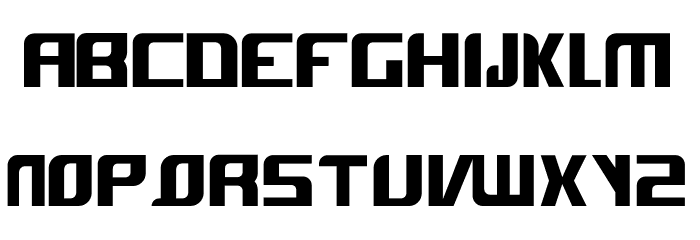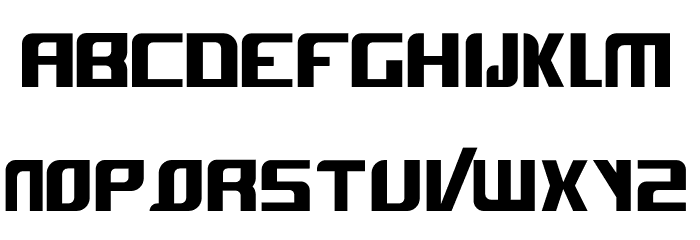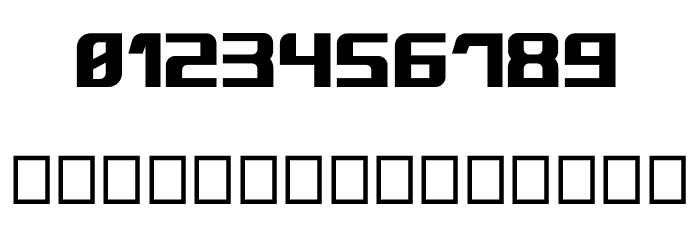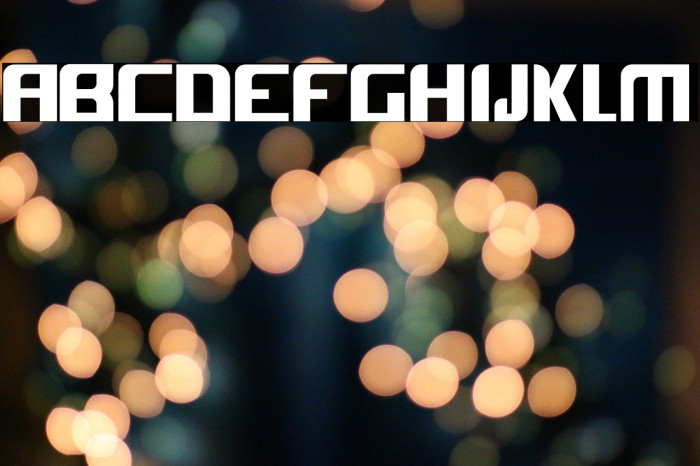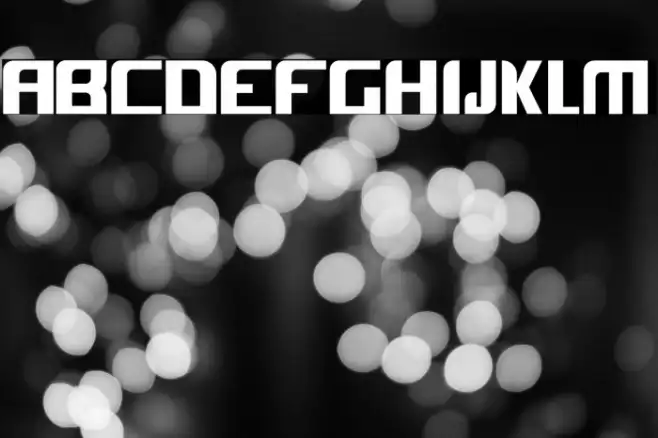
Evolved Font
This font features a bold, futuristic design with a distinctly geometric structure. The characters are crafted with sharp angles and a uniform thickness, giving it a strong, impactful presence. The uppercase letters are particularly striking, with a blocky appearance that emphasizes their modern aesthetic. The numbers and special characters maintain this cohesive style, ensuring consistency across all elements. The font's design is both functional and visually appealing, making it suitable for a variety of creative applications.
A bold, geometric font with a futuristic and modern design.
- Proposed Projects: Ideal for technology branding, sci-fi themed projects, video game titles, and modern advertising campaigns.